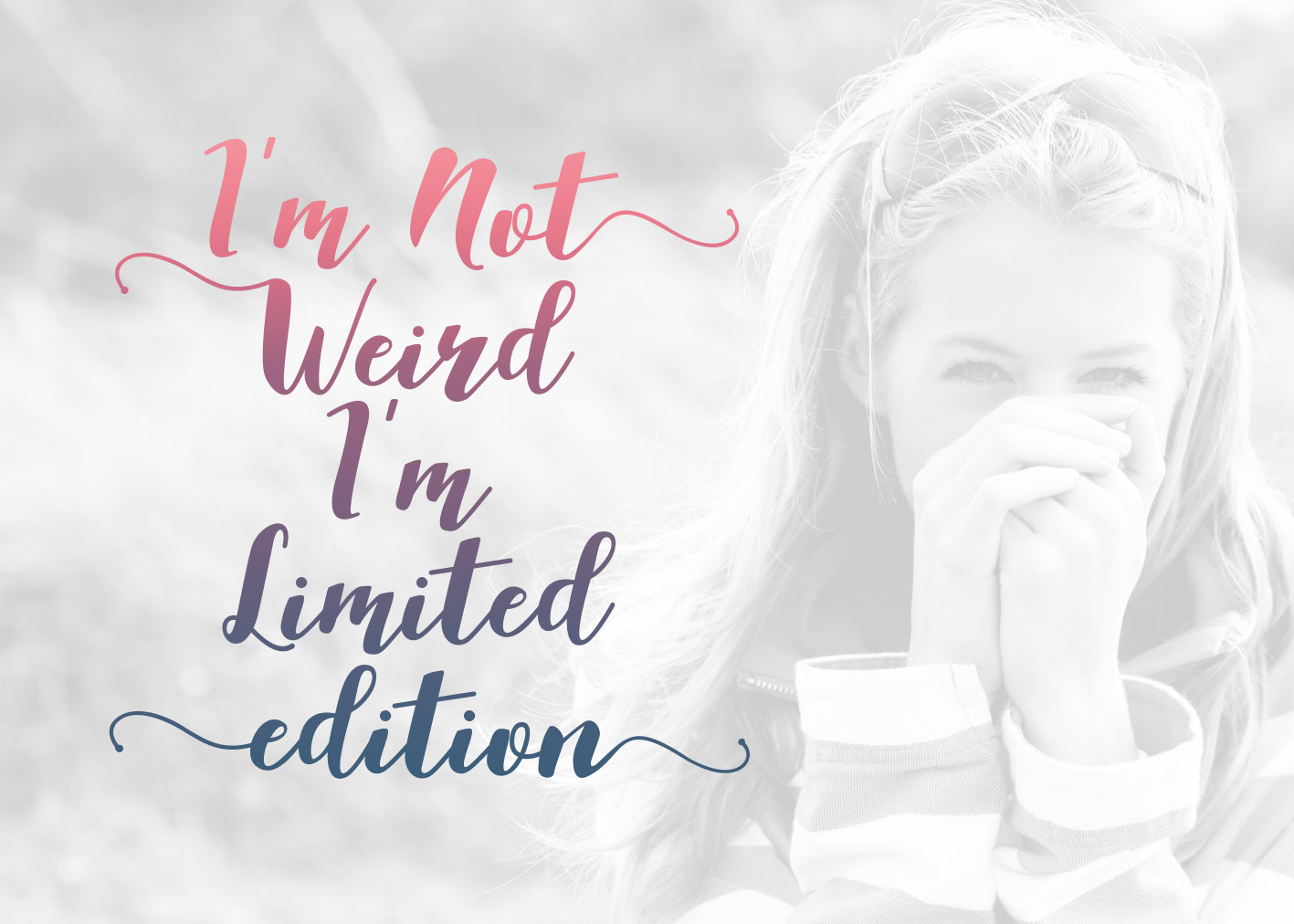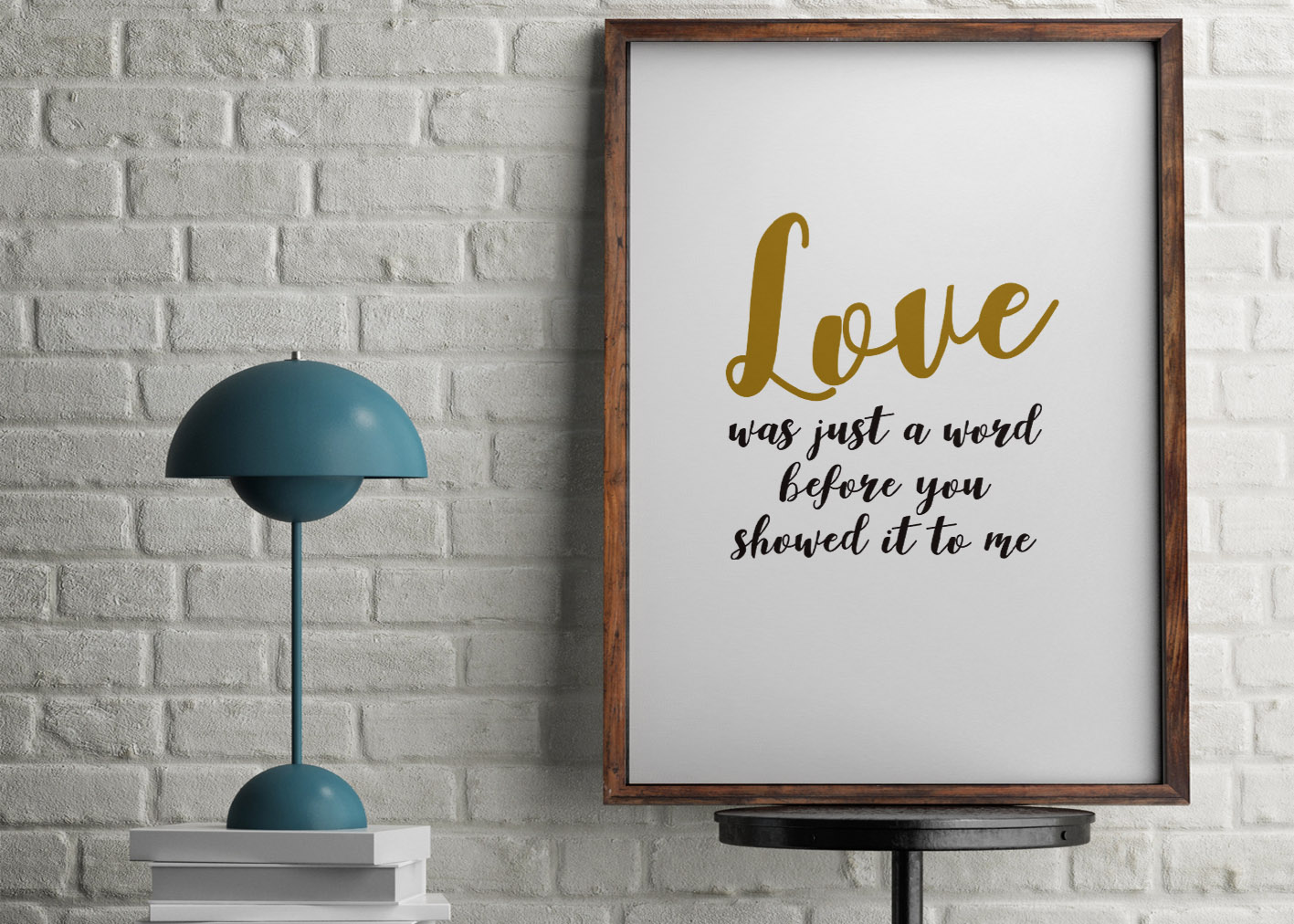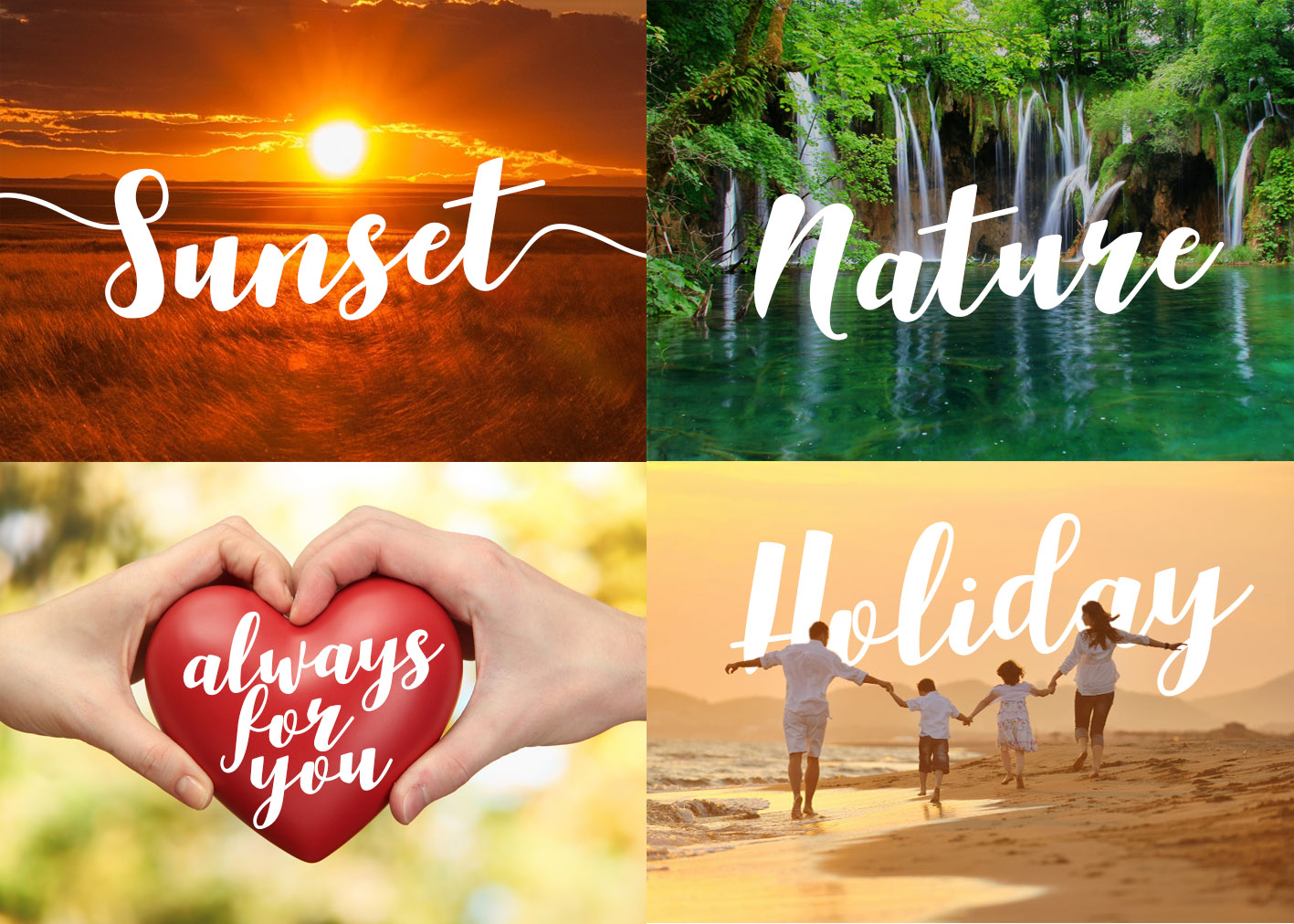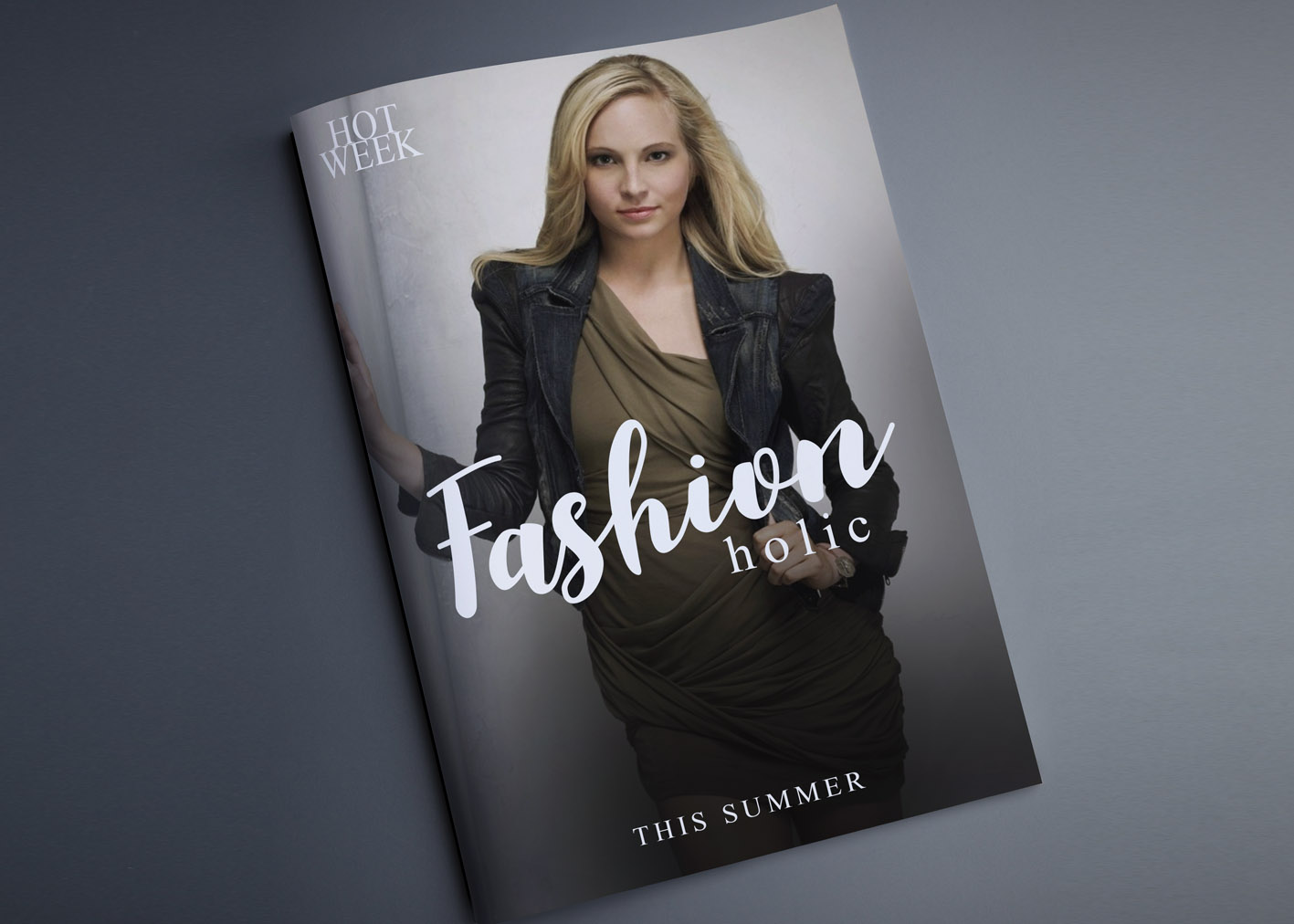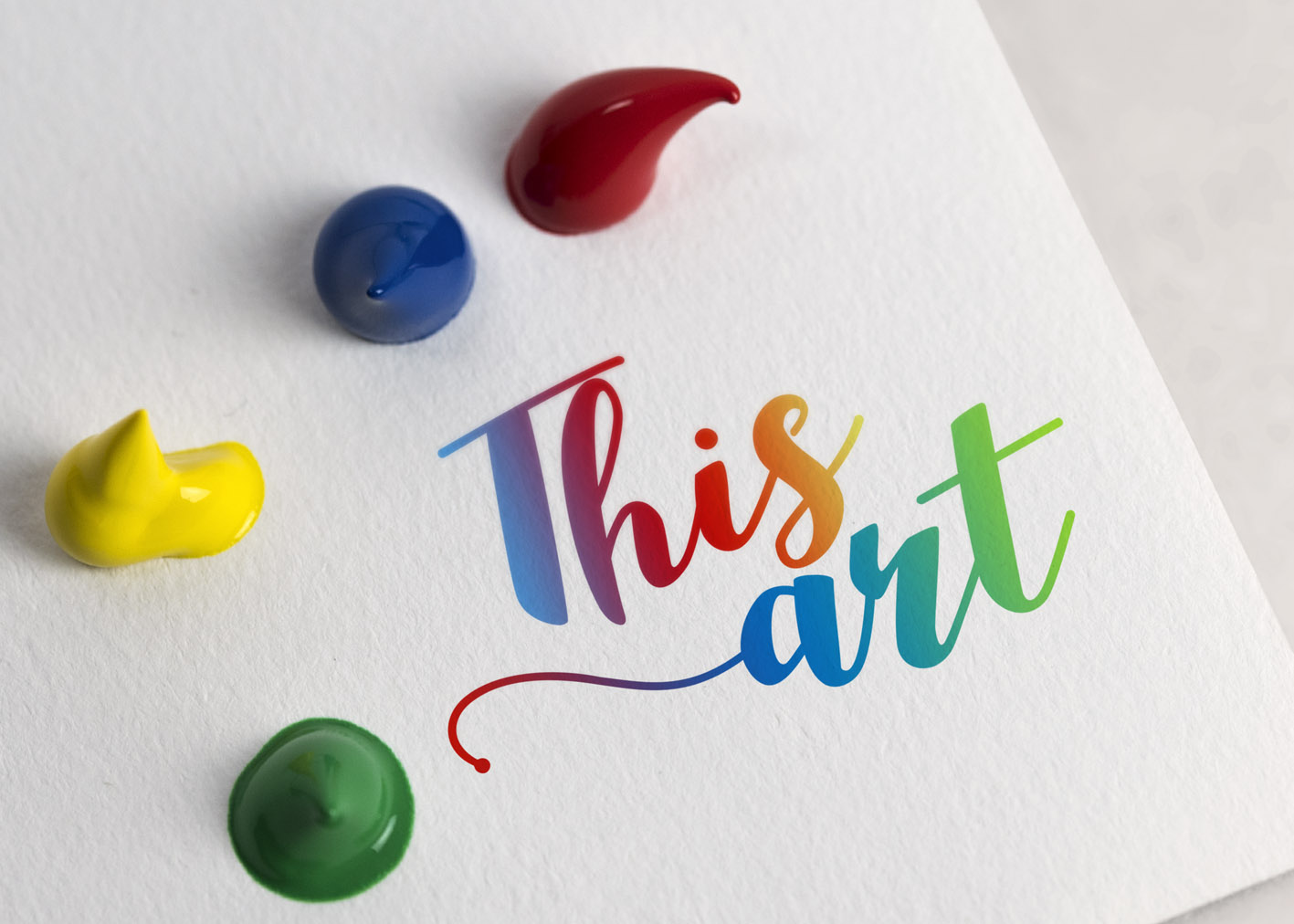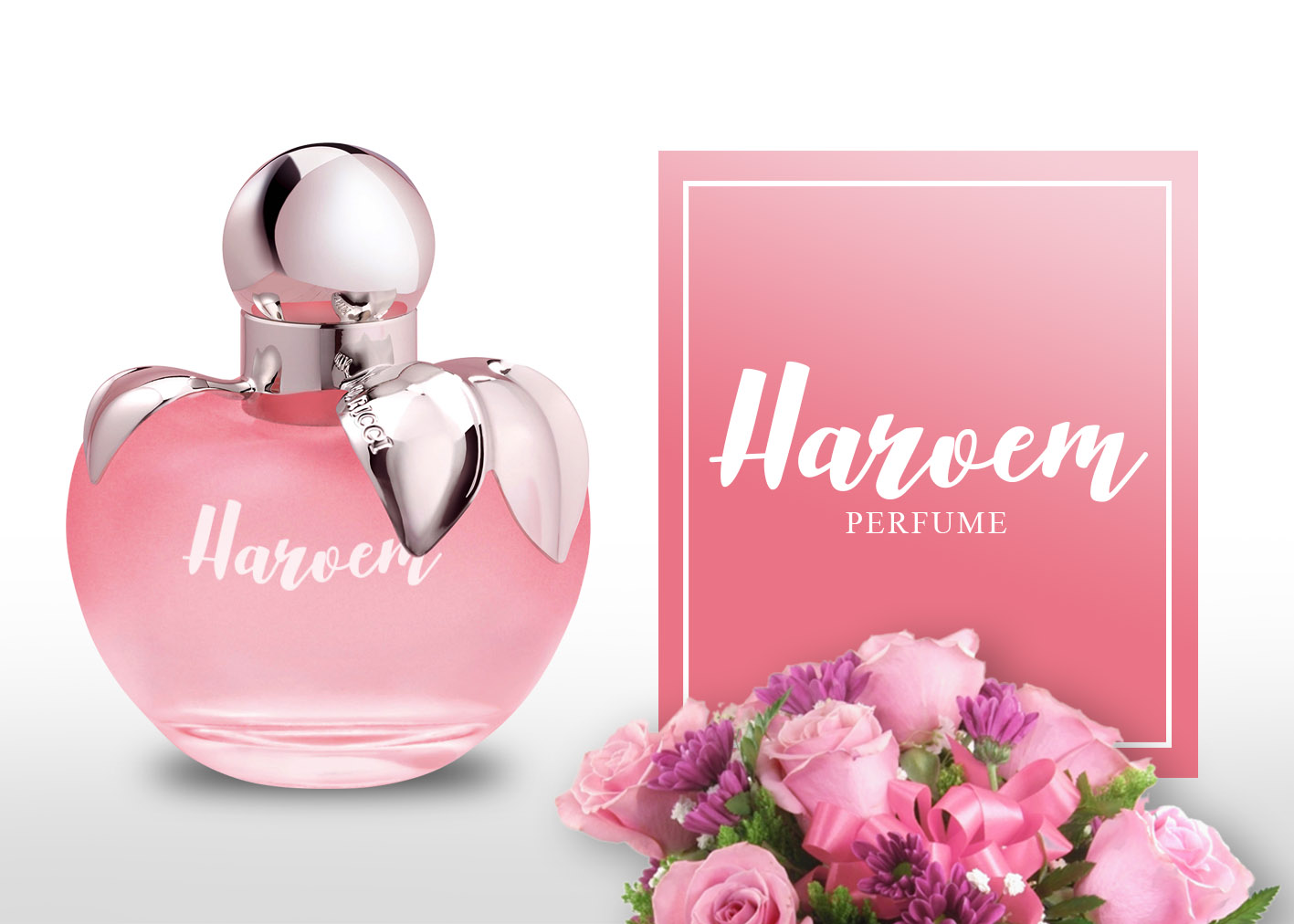
Aldine Font: The Perfect Modern Script for Your Creative Projects
In the world of typography, fonts play a crucial role in conveying the tone and personality of a brand or project. For designers and crafters looking for a fresh and modern script font, Aldine Script is an excellent choice. This beautifully handmade font is perfect for adding a personal touch to wedding invites, cards, signs, and other creative projects.
What is Aldine Font?
Aldine Font, also known as Aldine Script, is a modern script font that has gained popularity among designers and crafters due to its unique and elegant style. This font is completely handmade, which gives it a personal and distinctive touch. The creator of Aldine Font has put in meticulous effort to craft a font that is not only aesthetically pleasing but also highly versatile.
Characteristics of Aldine Font
Aldine Font boasts several characteristics that make it an ideal choice for various creative projects. Some of its notable features include:
- Handmade with love: As a handmade font, Aldine Script has a unique and personal touch that sets it apart from machine-generated fonts.
- Modern and fresh: Aldine Font has a modern and fresh feel to it, making it perfect for designers and crafters who want to add a touch of contemporary style to their projects.
- Elegant and sophisticated: The font’s elegant and sophisticated style makes it ideal for wedding invites, cards, and other formal events.
- Highly versatile: Aldine Font can be used for a wide range of projects, including wedding invites, cards, signs, and other creative endeavors.
Uses of Aldine Font
Aldine Font is a versatile font that can be used for various creative projects. Some of the most popular uses of this font include:
- Wedding Invites: Aldine Font is perfect for wedding invites, as it adds a touch of elegance and sophistication to the invitation.
- Cards and Stationery: This font is ideal for creating beautiful cards and stationery for special occasions.
- Signs and Banners: Aldine Font can be used to create stunning signs and banners for events, parties, and businesses.
- Branding and Packaging: This font can also be used for branding and packaging purposes, as it adds a touch of personality and elegance to a brand’s identity.
Why Choose Aldine Font?
There are several reasons why designers and crafters should choose Aldine Font for their creative projects. Some of the benefits of using this font include:
- Unique and distinctive: Aldine Font is a unique and distinctive font that will set your project apart from others.
- Elegant and sophisticated: This font adds a touch of elegance and sophistication to any project.
- Highly versatile: Aldine Font can be used for a wide range of projects, making it a great addition to any designer’s or crafter’s toolkit.
In conclusion, Aldine Font is a beautiful and versatile script font that is perfect for designers and crafters looking to add a personal touch to their creative projects. With its unique and elegant style, this font is ideal for wedding invites, cards, signs, and other formal events. Whether you’re a professional designer or a crafter, Aldine Font is a great addition to your toolkit.